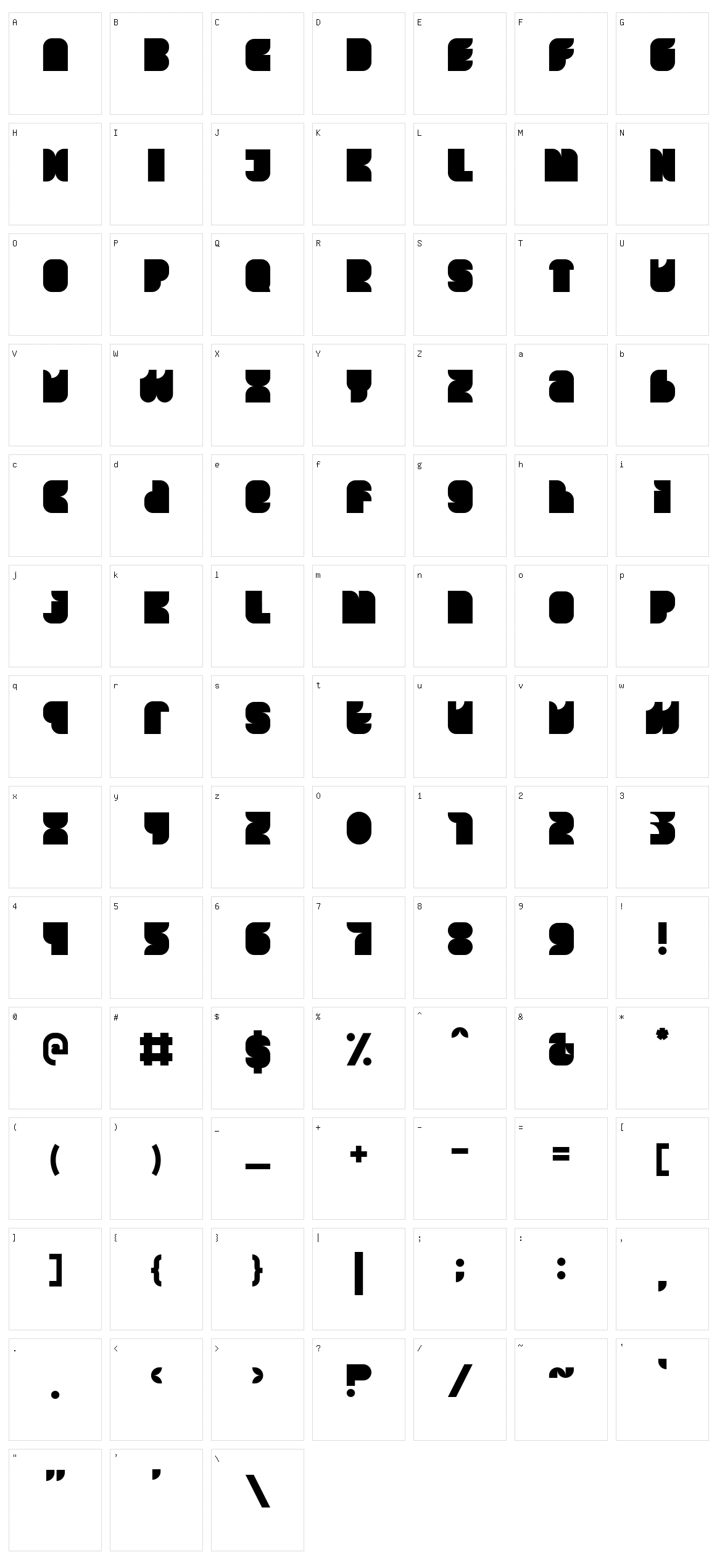
The free font Chingchay is carefully designed by Mehibi, showcasing a thoughtful balance of creativity and usability and falls under the Groovy font style. When you download the ZIP file, it contains only 16.71 KB of font files, making it lightweight and quick to download. Please review the license details below to understand permitted usage and distribution rights. If license information is not available, we recommend using this font for personal projects only or contacting the author directly for commercial usage permissions.